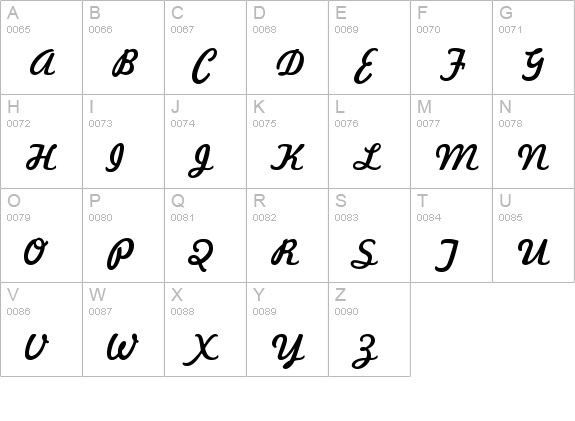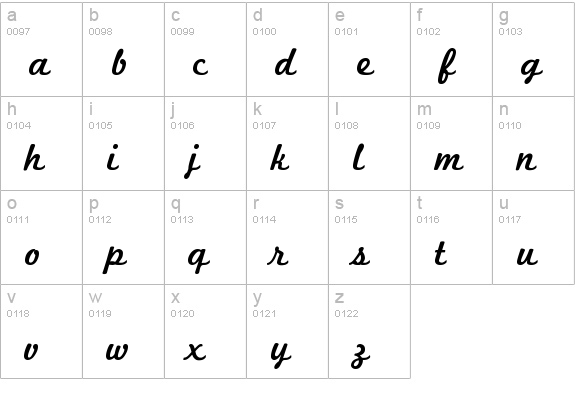
Marketing Script Font Details
Introducing Marketing Script, a beautifully crafted font that seamlessly combines elegance with a touch of playfulness. Designed specifically for marketing materials, this font is perfect for captivating your audience and leaving a lasting impression. With its graceful curves and flowing lines, Marketing Script exudes sophistication and charm, making it the ideal choice for branding, advertisements, packaging, and more. Its versatility allows it to be used for both formal and casual contexts, giving your designs a unique and professional look. Not only does Marketing Script offer stunning aesthetics, but it also provides convenience. This font is freely available to download at FontsMarket.com, giving you easy access to its incredible features at no cost. Now, you can elevate your marketing materials without breaking the bank. Whether you're a professional designer or a small business owner, Marketing Script is the font that will help you stand out from the crowd. Its impeccable readability ensures that your message is conveyed effortlessly, while its distinctive style adds a touch of personality to your designs. Don't miss out on the opportunity to enhance your marketing efforts with this remarkable font. Download Marketing Script for free at FontsMarket.com and unlock a world of possibilities for your brand.